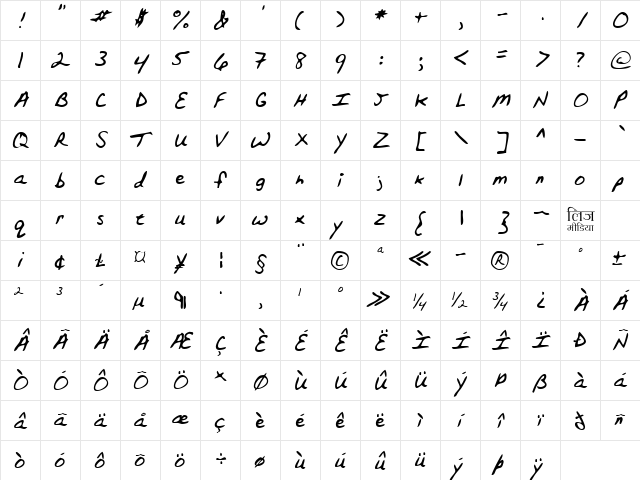
LEHN152 Regular
Design Context for LEHN152 Typeface
LEHN152 is a composed and adaptable typeface that performs quietly and consistently across a wide range of design contexts.